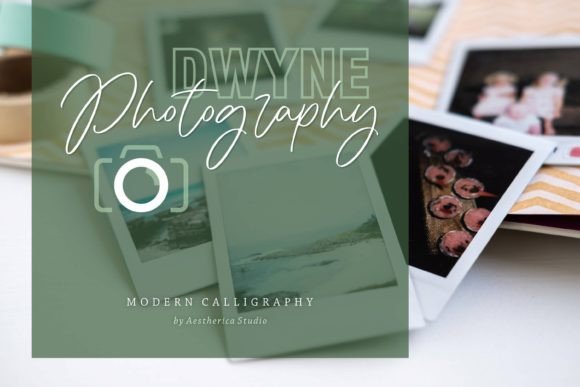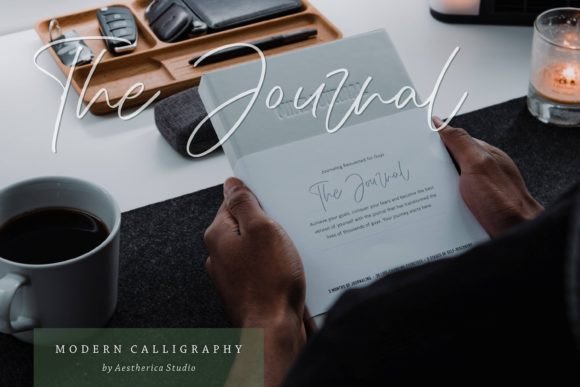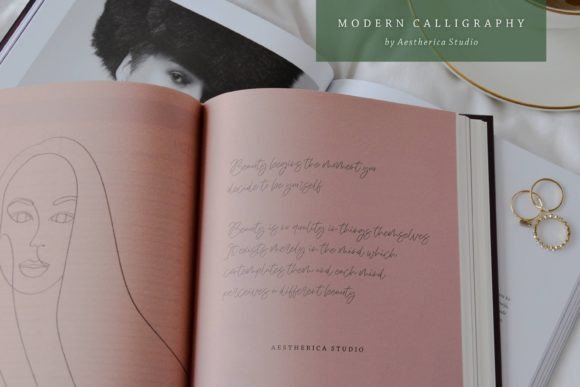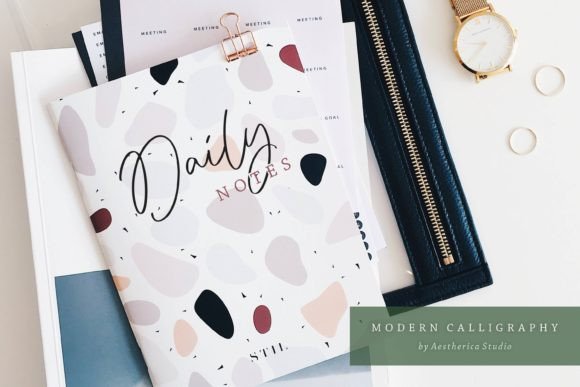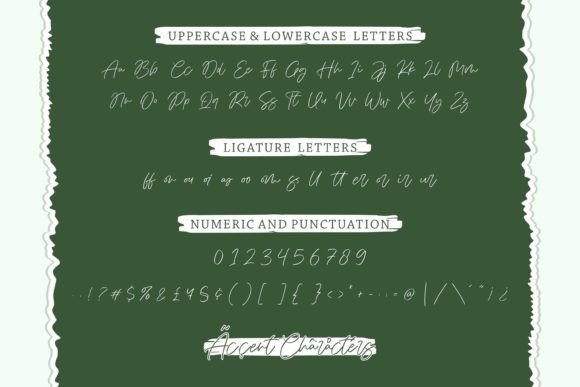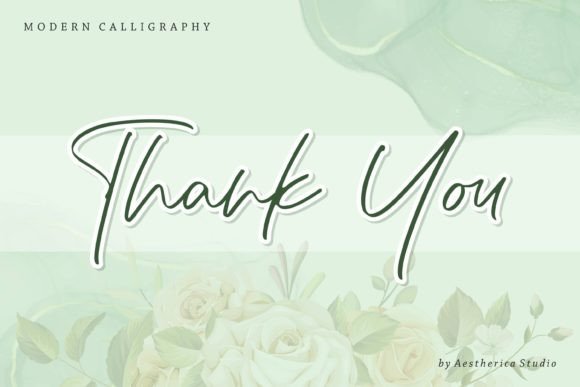
The Perfect Brushstroke: Unlocking the Magic of Bonjourno Font
Have you ever found yourself scribbling down a rough idea in a notebook, only to discover that it’s the spark that sets your creative journey ablaze? For designers, those moments of inspiration can be fleeting, but the right tools can help bring them to life. And that’s exactly where the Bonjourno Font comes in – a stunning modern calligraphy font that captures the essence of manual handwriting.
This beautifully crafted font is more than just a design element – it’s a way to add a touch of elegance and sophistication to any project. With its stylistic alternate, ligatures, and delicate tick and thin strokes, the Bonjourno Font is perfect for logos, invitations, and packaging, making it a valuable addition to any designer’s toolkit.
Bonjourno Font Key Features
- Font Family: Bonjourno Font is a script font designed to evoke a sense of elegance and sophistication.
- Character Set: The font includes a comprehensive character set, including uppercase and lowercase letters, numbers, and punctuation marks.
- Unique Characteristics: The font features a unique, flowing script design with subtle flourishes and connectors, giving it a distinctive and elegant feel.
Bonjourno Font Review
I was excited to dive into the Bonjourno Font, and overall, I’d say it’s a solid addition to any designer’s toolkit. ✨ The font’s playful and whimsical feel is perfect for adding a touch of French charm to any project. The character set is comprehensive, covering a wide range of languages, which is a huge plus.
The Bonjourno Font’s lines are smooth and well-balanced, making it easy to read and aesthetically pleasing. It’s also highly versatile, suitable for use in everything from body text to headlines. ✨ The font’s ability to adapt to different sizes and resolutions without losing its charm is a testament to its quality.
- ⚠️ The font’s weight range is somewhat limited, with only 5 weights available, which may not be ideal for projects requiring a wide range of styles.
- ⚠️ The font’s italic and oblique styles could be improved, as they can appear somewhat inconsistent and awkward in certain situations.
Overall, the Bonjourno Font is a delightful addition to any designer’s arsenal. While it may have some limitations, its charm and versatility make it a great choice for a wide range of projects. With a little creativity and flexibility, the Bonjourno Font can add a unique and eye-catching touch to any design.
Tips: Use the “Bonjourno Font” for headings and titles to add a touch of elegance and sophistication to your design.
Tips: Use the “Bonjourno Font” for text overlays and graphics to add a unique and eye-catching element to your design.
Tips: Use the “Bonjourno Font” for headings and titles to add a touch of elegance and sophistication to your document.
The “Bonjourno Font” is ideal for:
– Luxury branding and marketing materials
– High-end fashion and beauty products
– Any design that requires a touch of elegance and sophistication